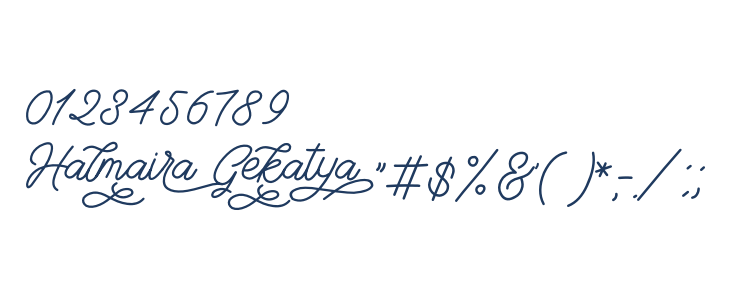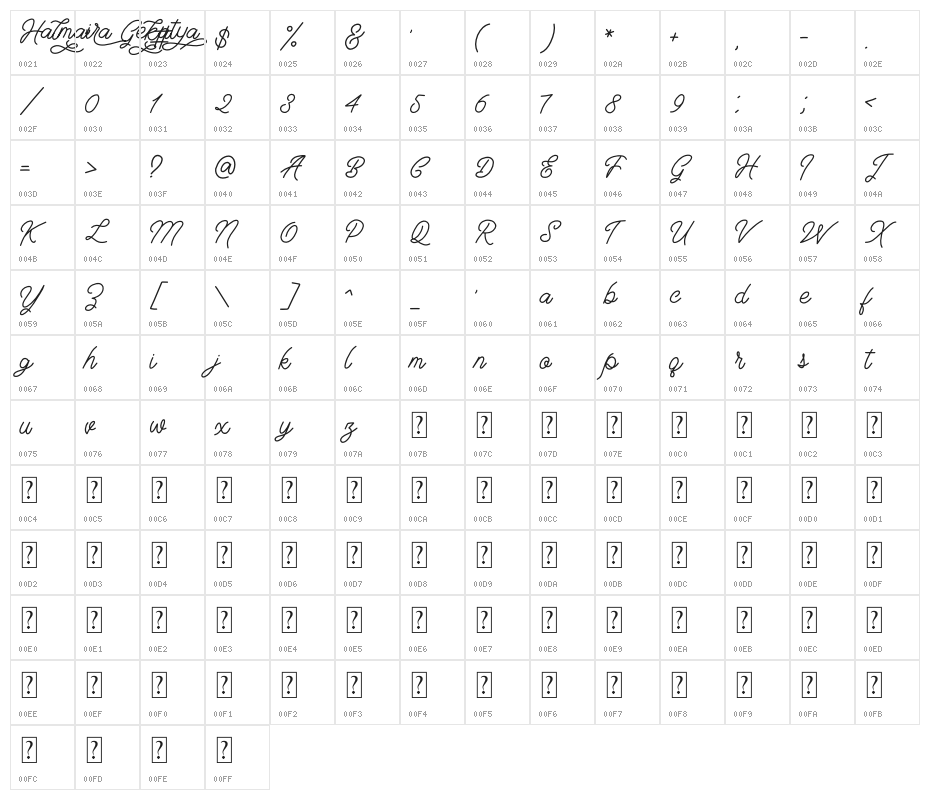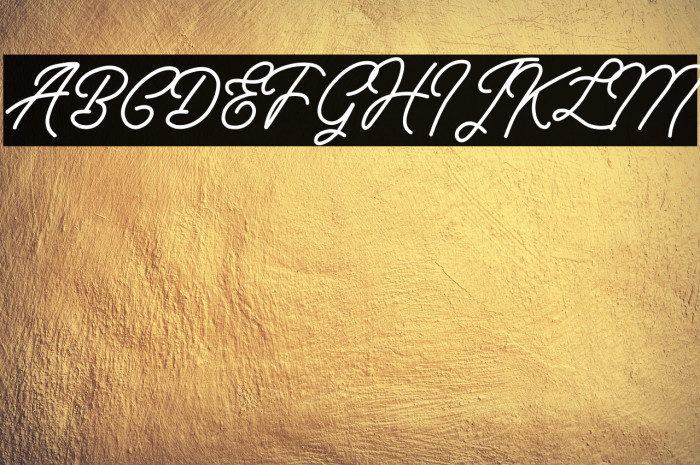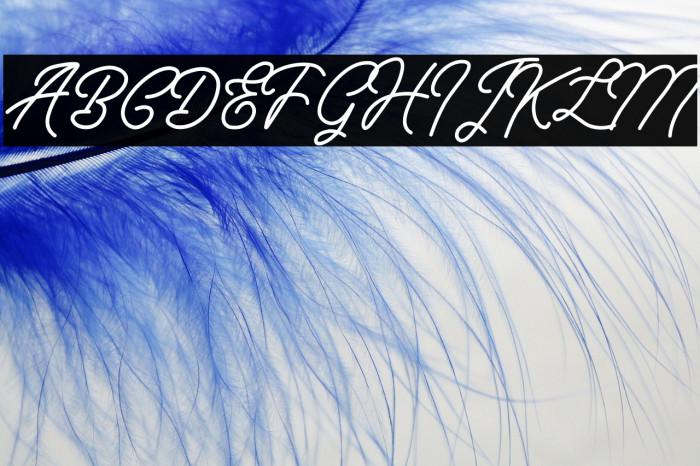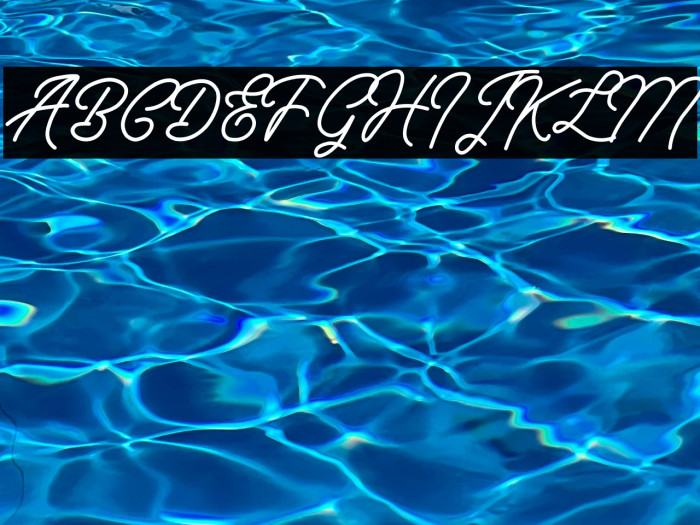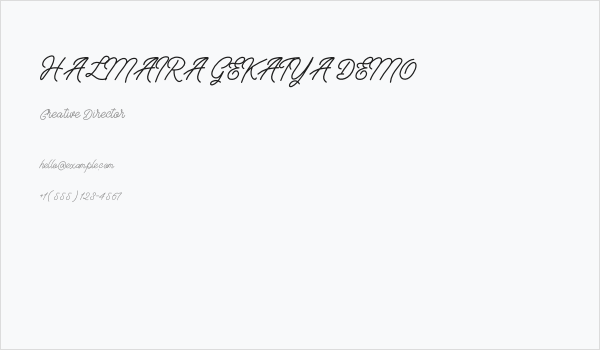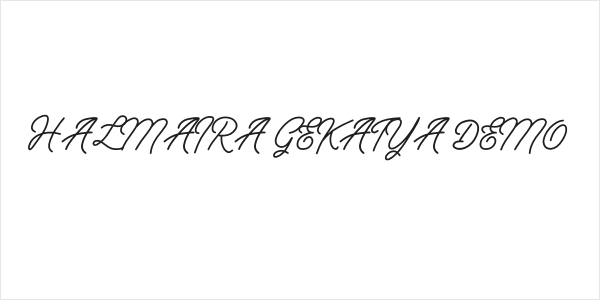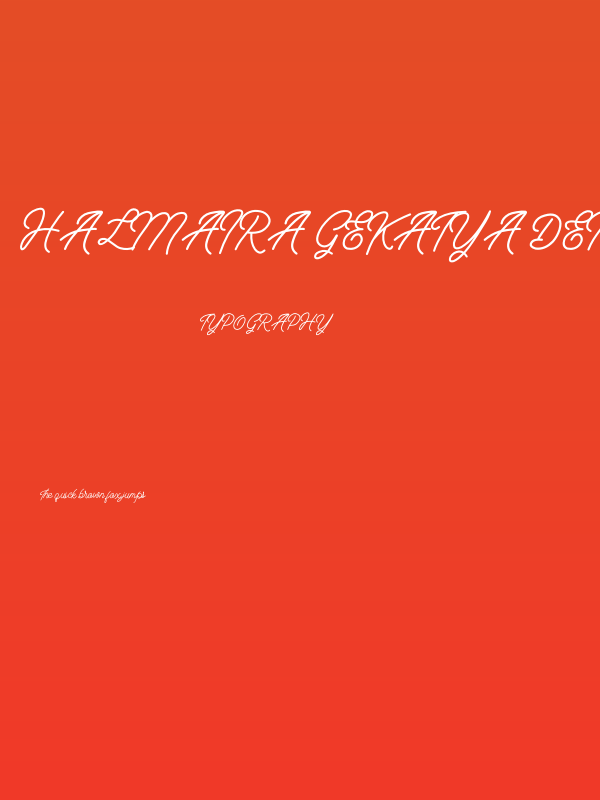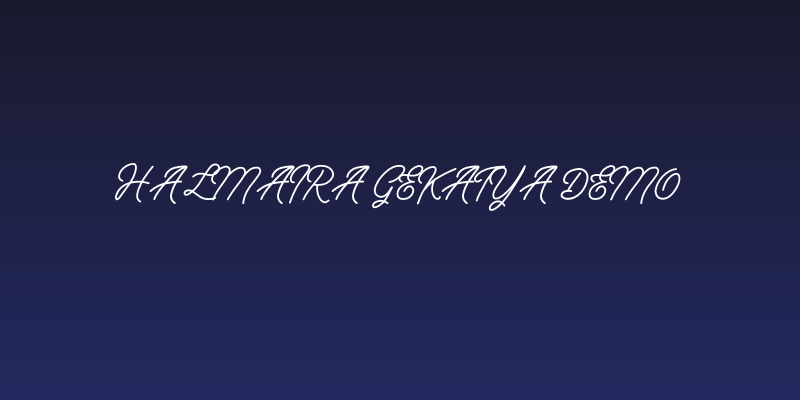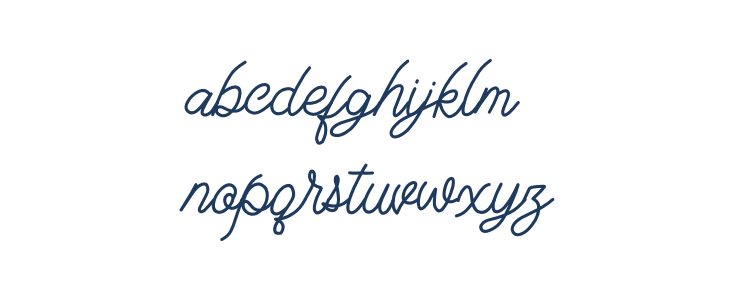
HALMAIRA GEKATYA DEMO Font
HALMAIRA GEKATYA DEMO Description
This font exudes elegance and sophistication with its flowing, cursive script style. The characters are intricately designed with smooth, continuous strokes that mimic the fluidity of handwriting. Each letter connects seamlessly to the next, creating a harmonious and cohesive look. The uppercase letters are slightly larger and more ornate, while the lowercase letters maintain a consistent size and style, enhancing readability. Numbers and special characters are crafted with the same attention to detail, ensuring a uniform appearance across all elements. The overall design is both classic and modern, making it versatile for various applications.